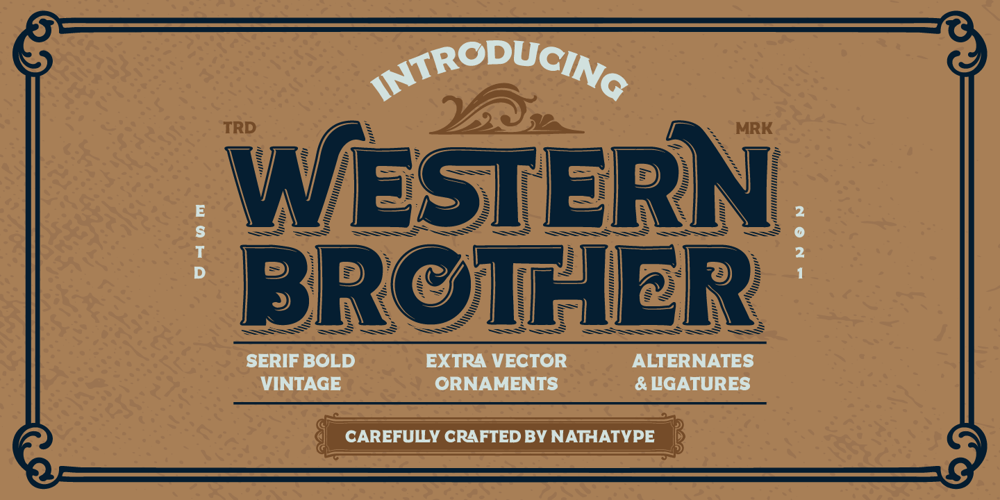
Western Brother
Western Brother font
Western Brother Font Family was designed by Donis Miftahudin and published by Nathatype. Western Brother contains 2 styles and family package options. Ready to enhance your branding? Looking for that “something” that’ll make your audience go WOW and clients get on board immediately? We’ve got JUST the thing for you!Western Brother-A Vintage FontWestern Brother is a display typeface. Designed primarily as a captivating font with retro style. This font features thick that easy on the eyes and nice to look while it’s also easy to read at captivating headlines, or large branding text, the font oozes that cute aesthetic that just makes you go “aww!”Our font always includes Multilingual Support to make your branding reach a global audience. Features: Alternates Ligatures Stylistic Sets Swashes Bonus Ornament PUA Encoded Numerals and Punctuation Thank you for downloading premium fonts from Nathatype